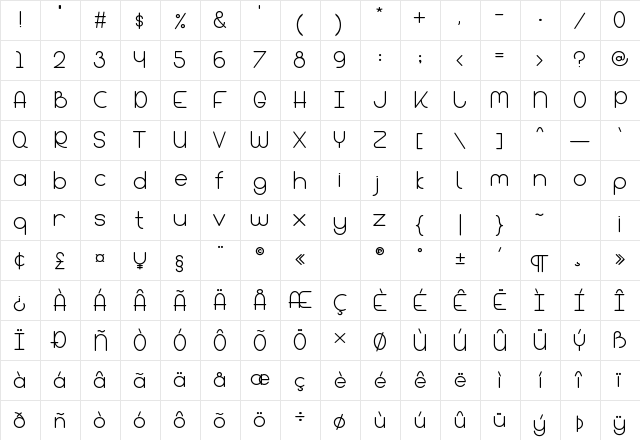
Bandar Regular
| Designer | Afkari Studio KanaType |
Design Context for Bandar Typeface
Bandar takes a measured approach to typography — its balanced proportions and neutral character make it a reliable workhorse for both digital and print work.